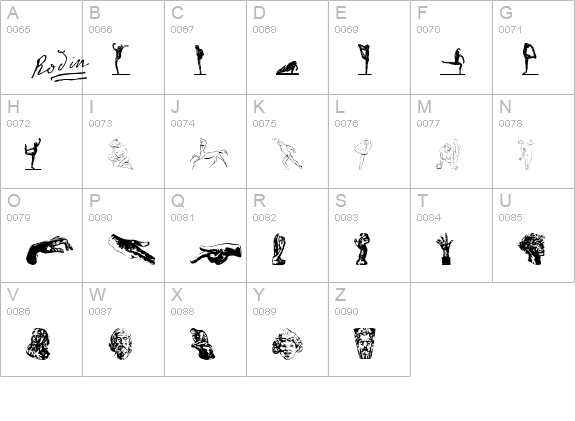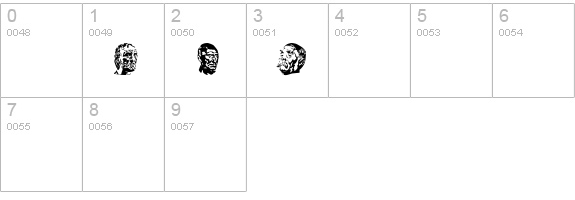
Rodin Extras Font Details
Rodin Extras is a versatile and stylish font designed to add a touch of sophistication to your designs. With its elegant and intricate details, this font is perfect for creating eye-catching headlines, logos, and other design elements. The extra characters included in Rodin Extras allow you to further customize your designs and make them truly unique. The best part? Rodin Extras is completely free to download at FontsMarket.com. Whether you're a professional designer looking to add a special touch to your projects or a hobbyist looking to explore new fonts, Rodin Extras is a great choice. Download it today and take your designs to the next level with this beautiful and versatile font.